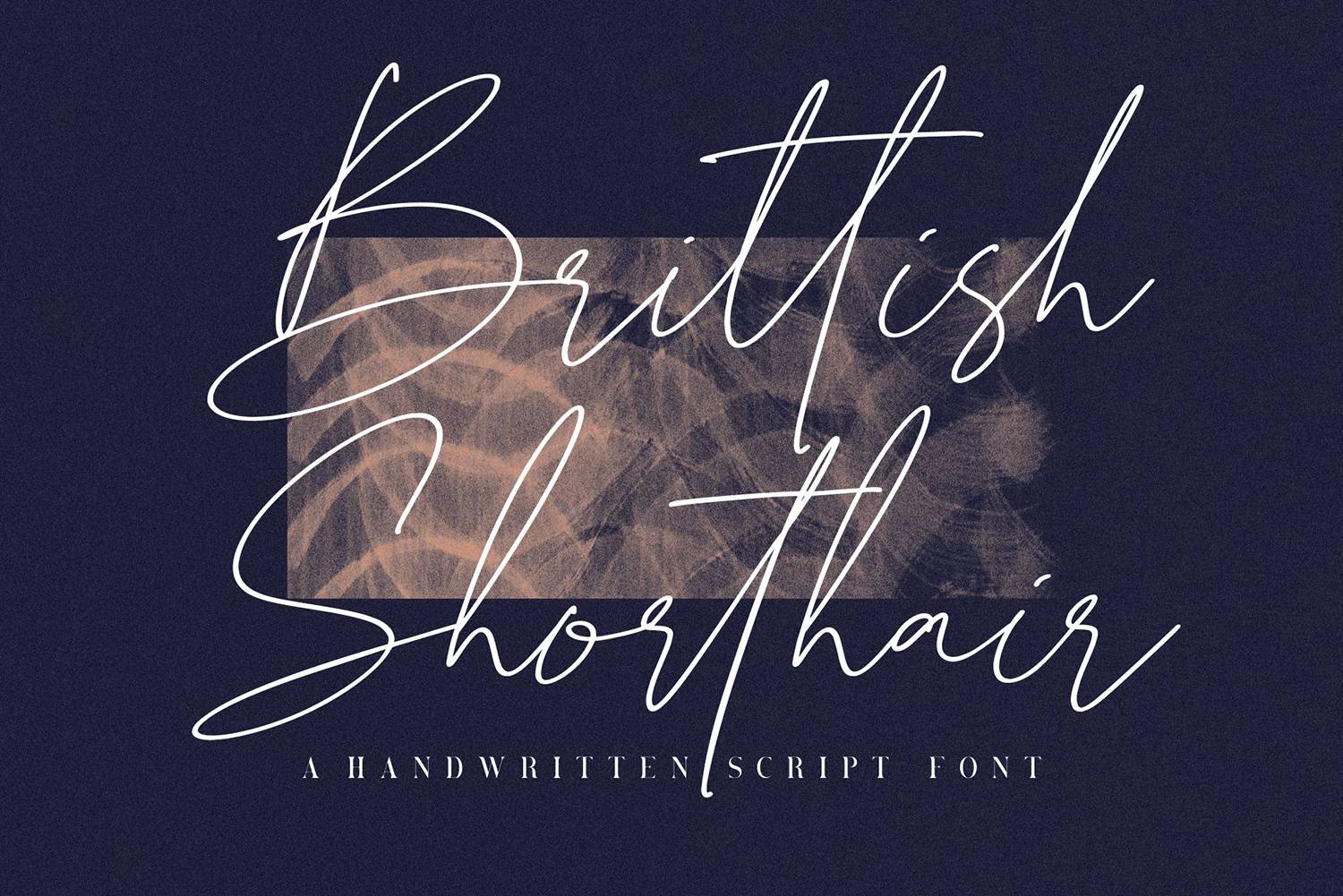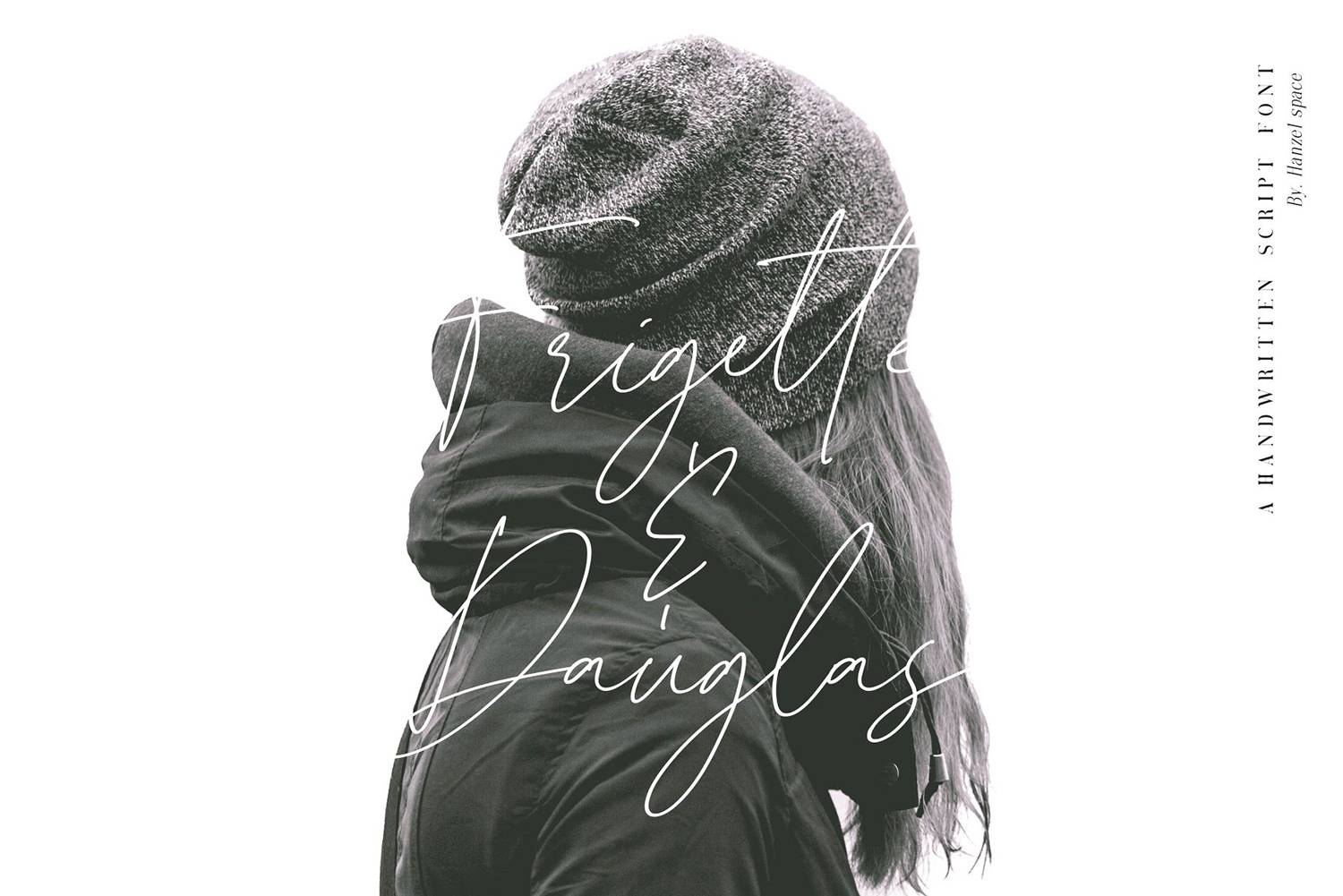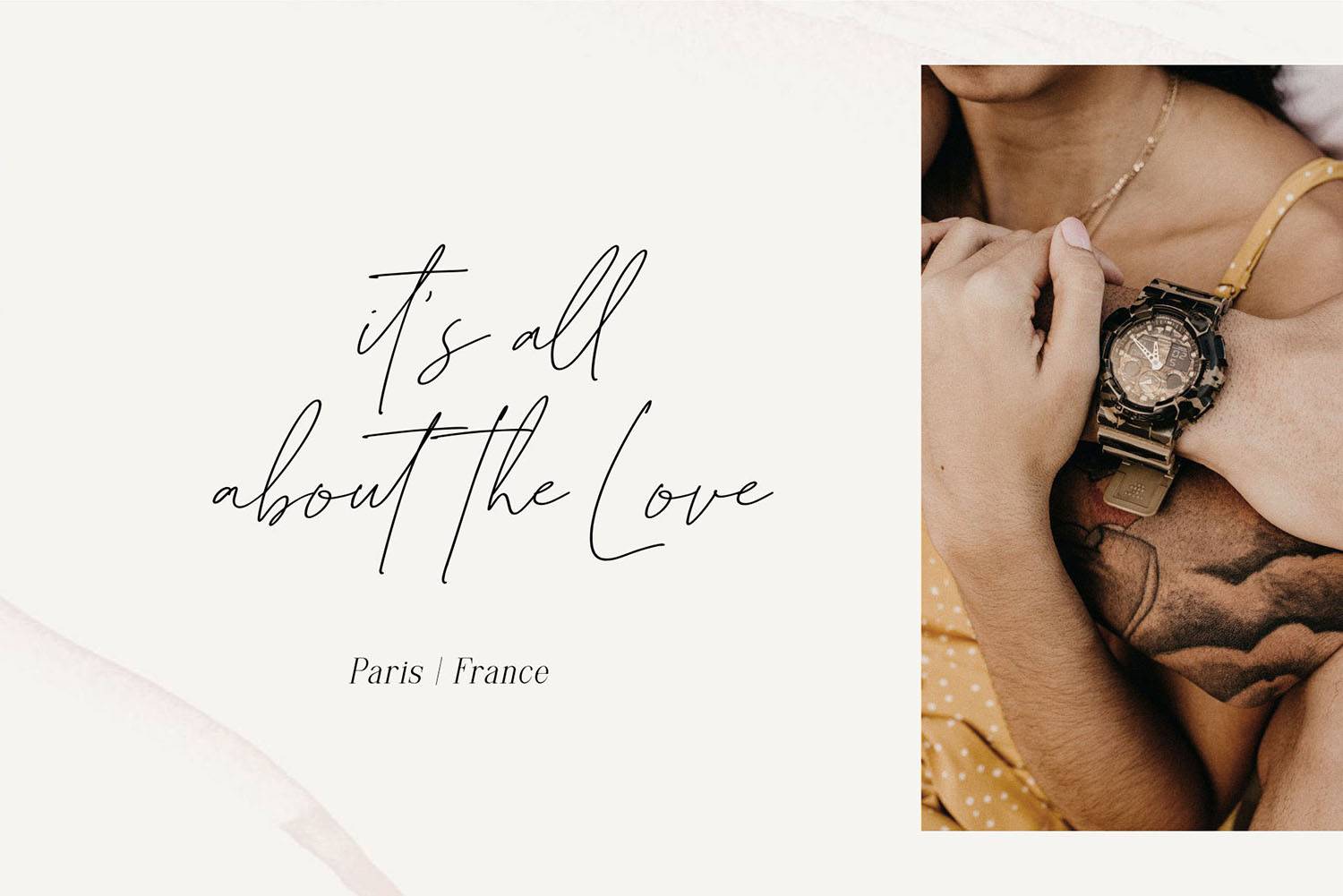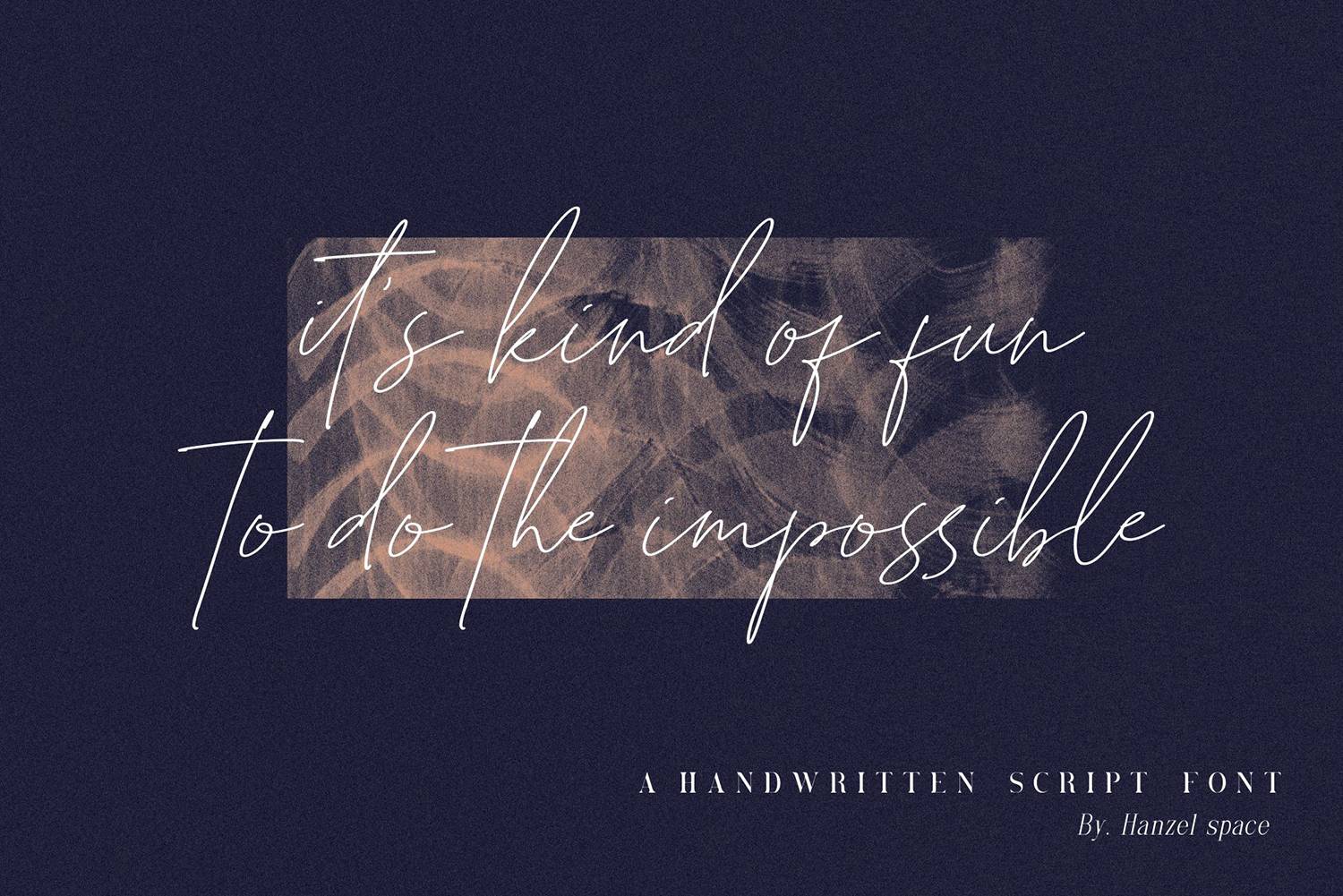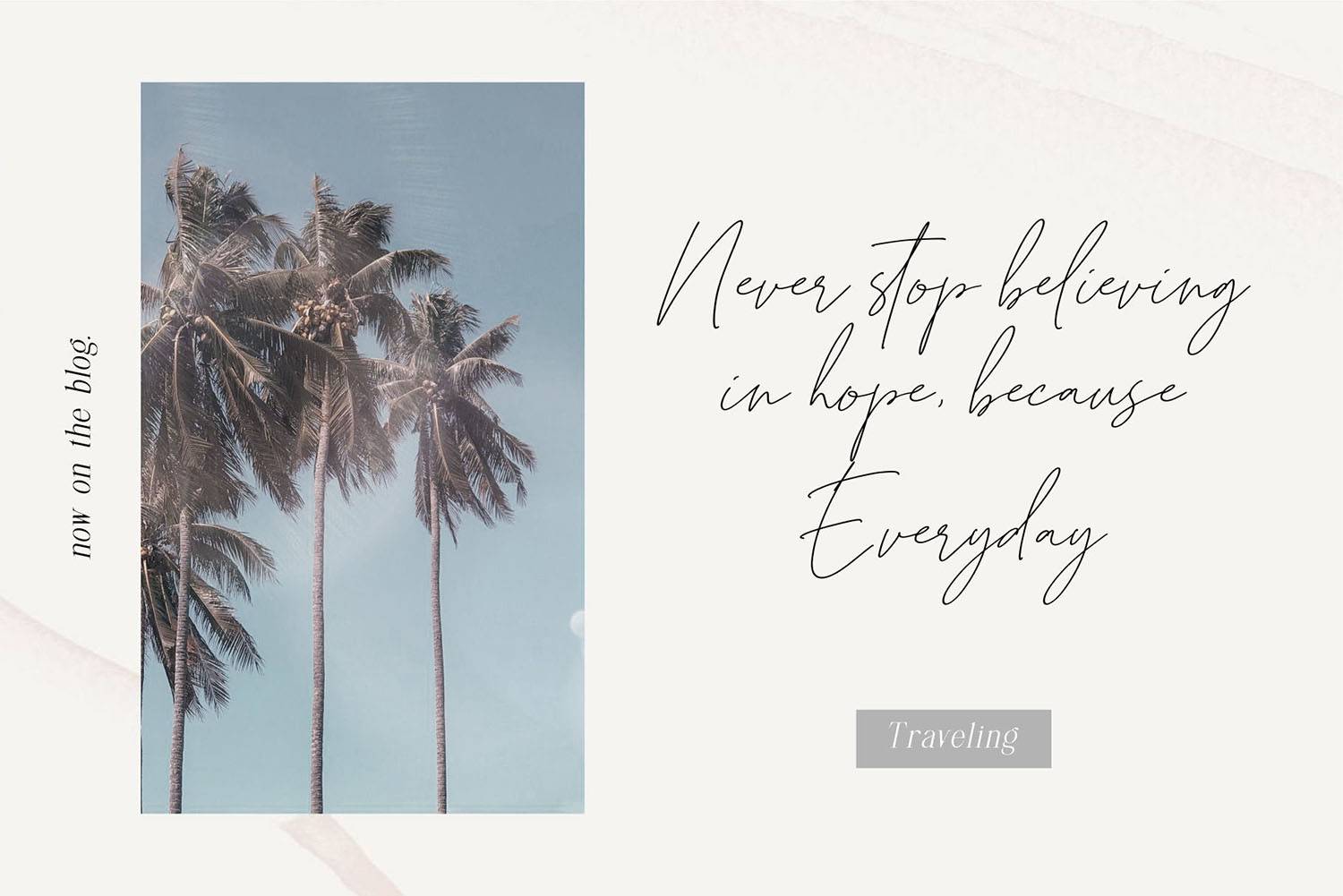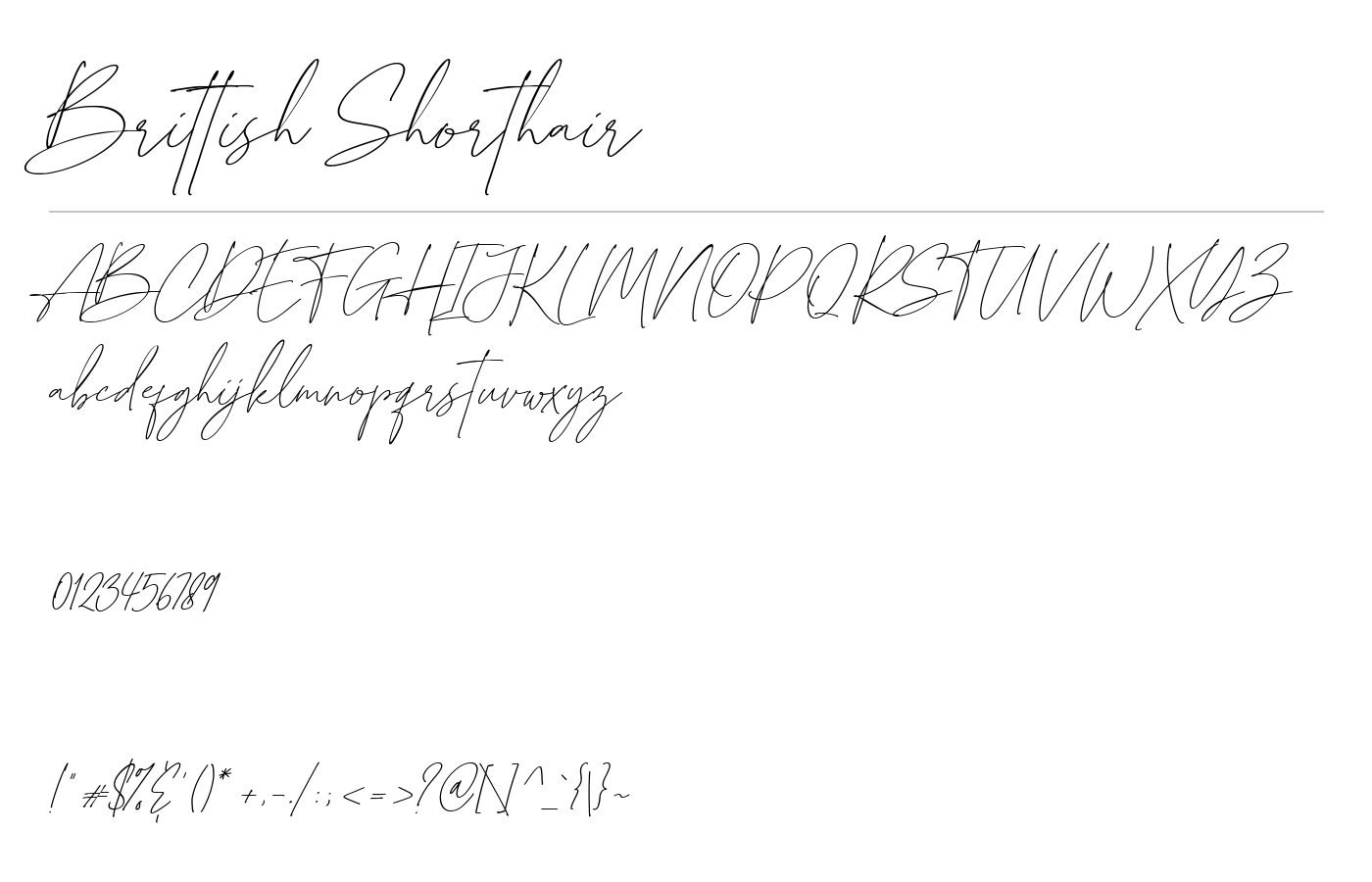
Brittish Shorthair is an elegant, slender script font that mimics delicate, natural handwriting with its thin, flowing strokes and high contrast in line weight. It feels personal and refined, making it perfect for luxury branding, wedding invitations, and stylish editorial designs. Its airy spacing and graceful curves give any project a sophisticated and approachable touch.
Brittish Sorthair Font
About Brittish Sorthair Font
| Designer | Hanief Farandi |